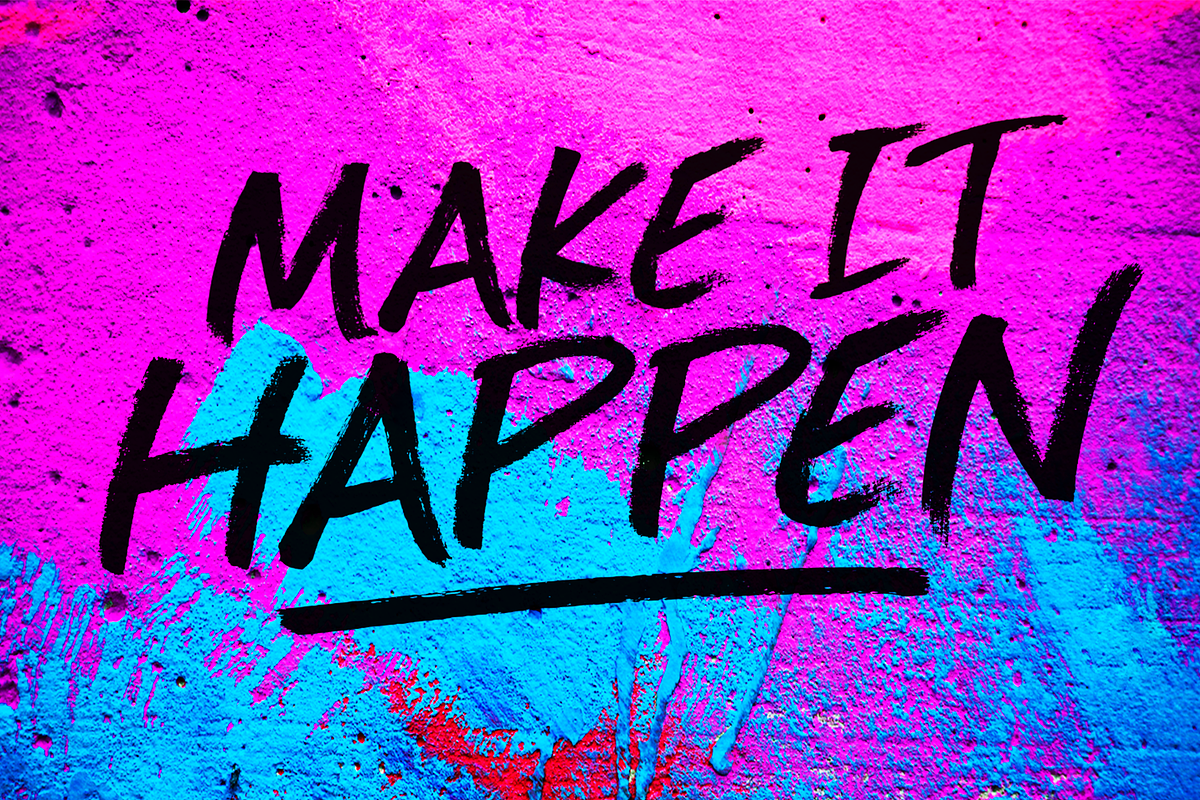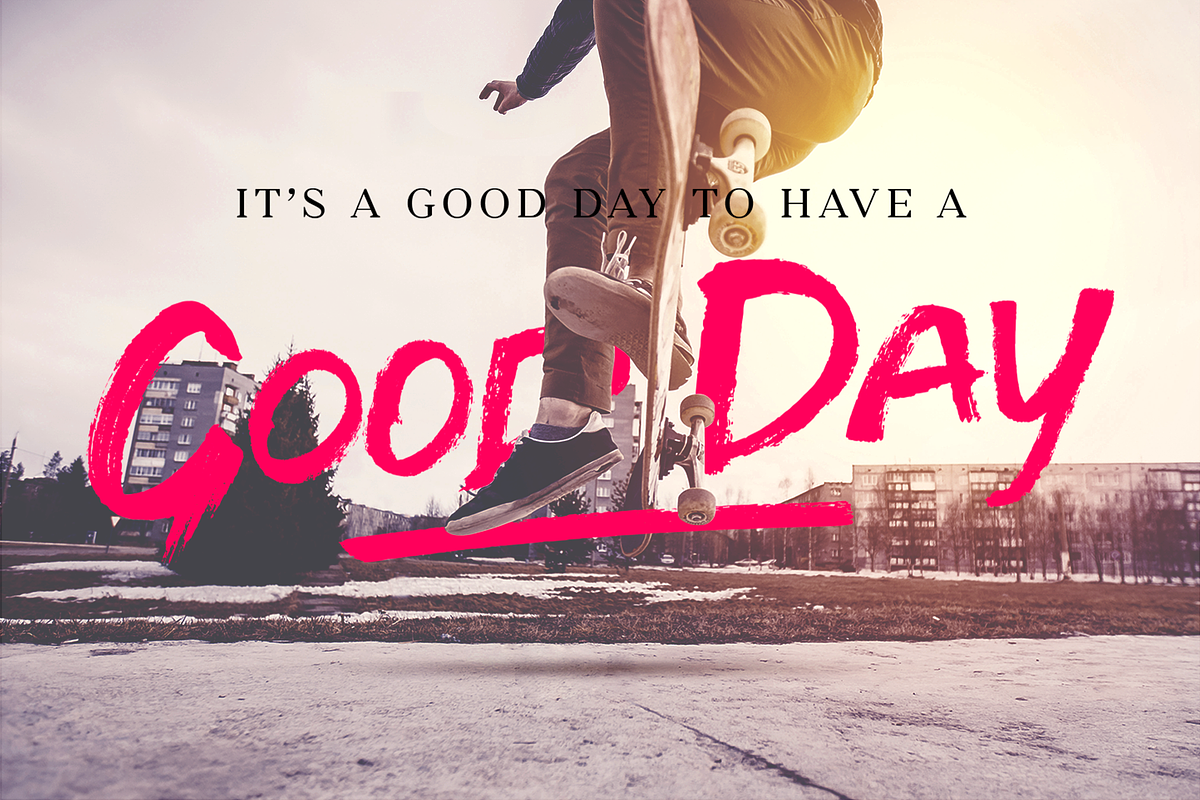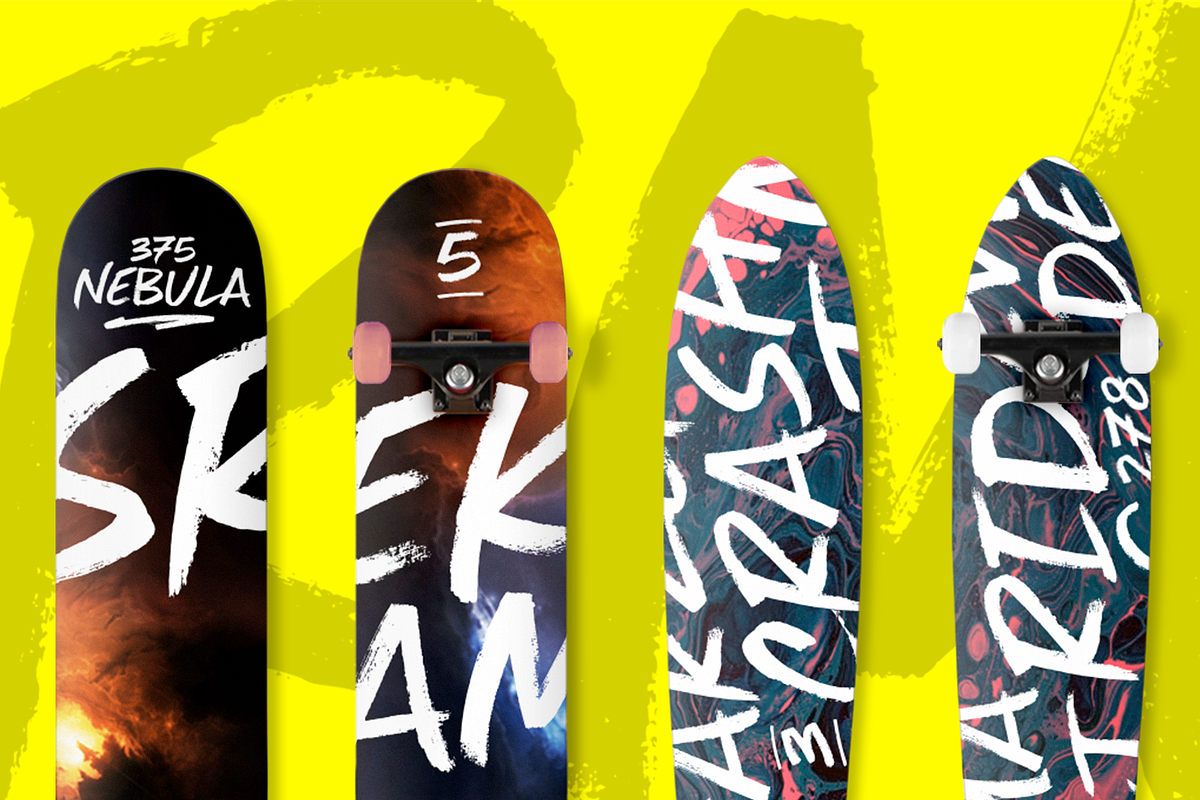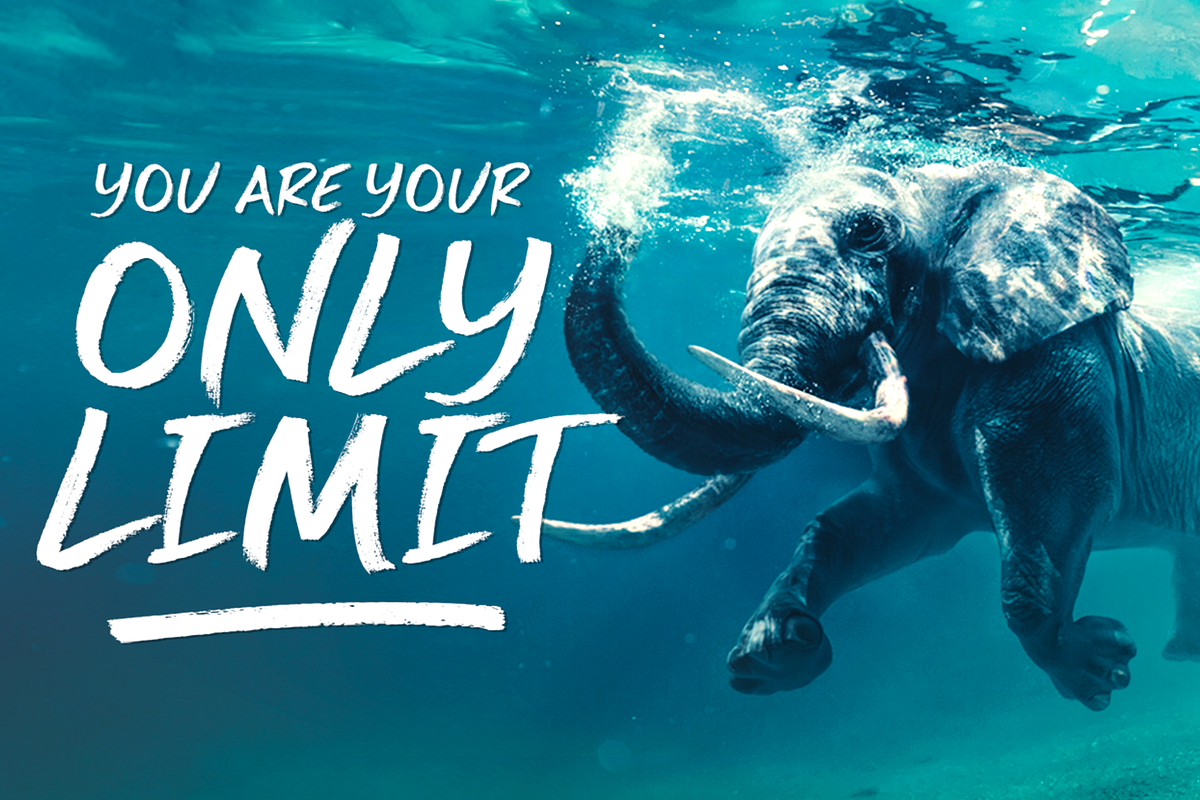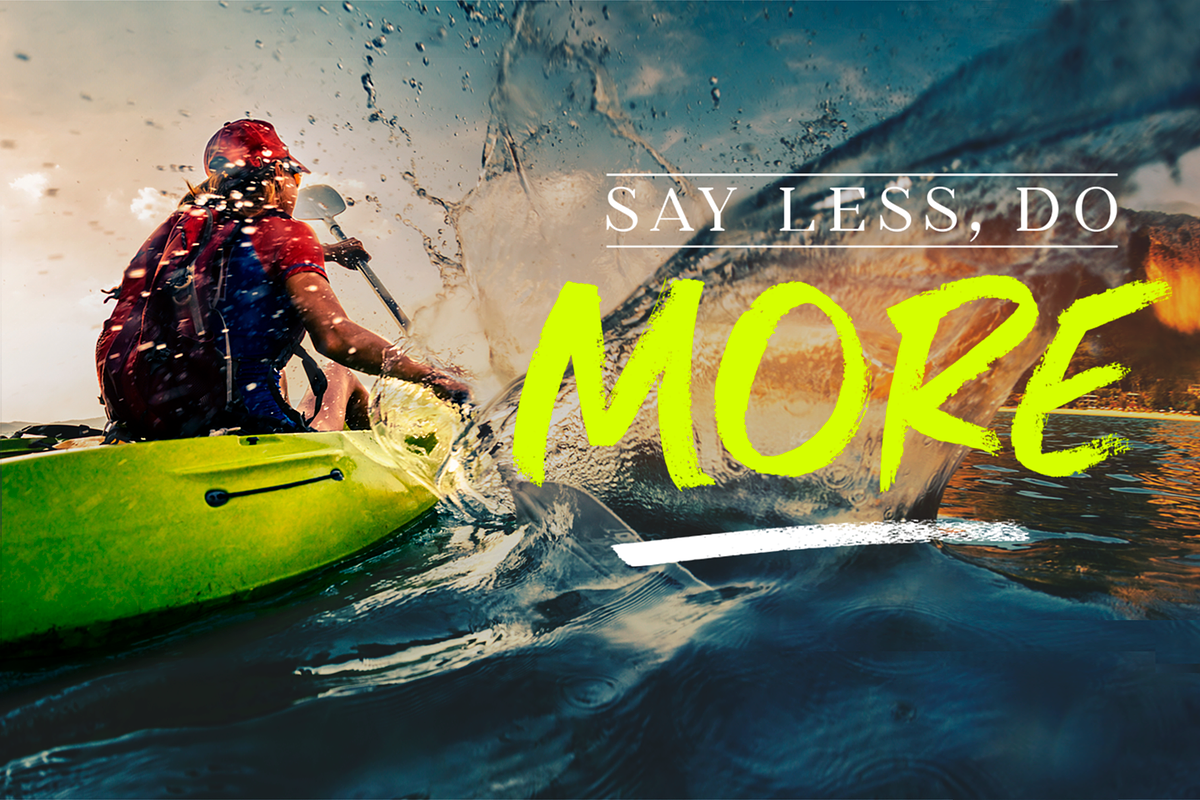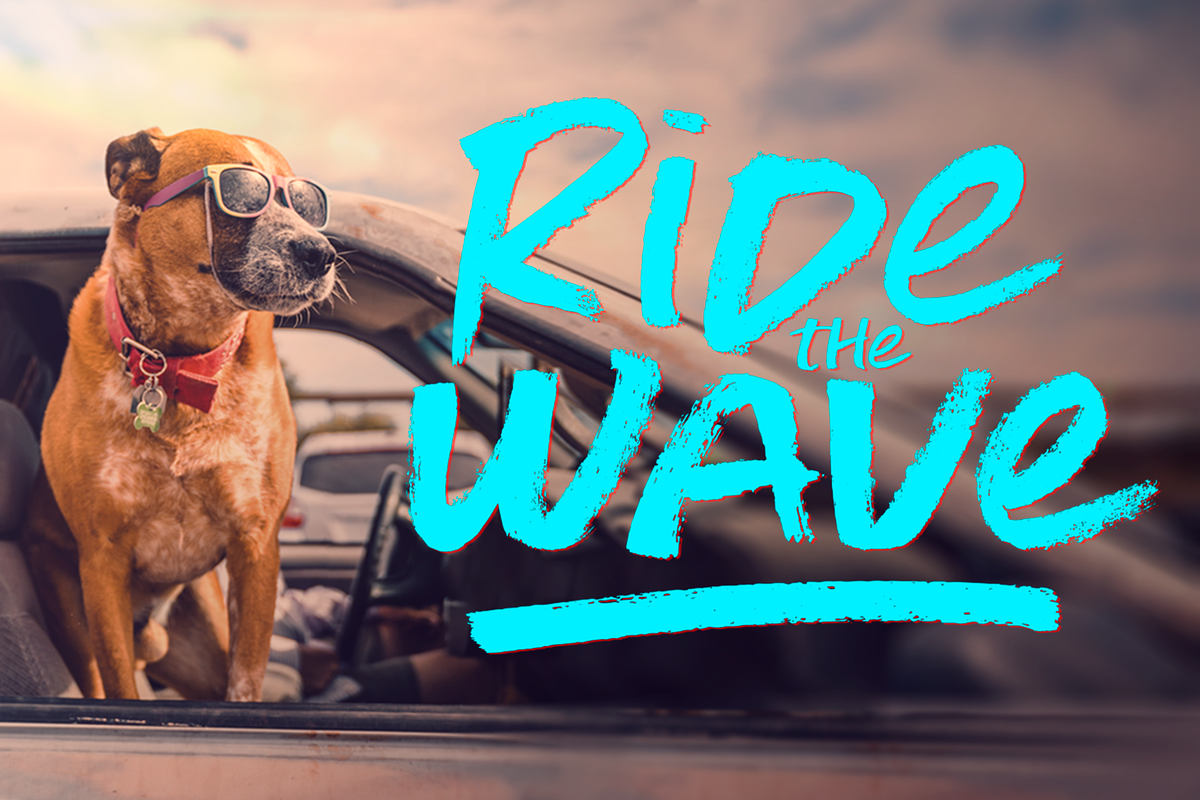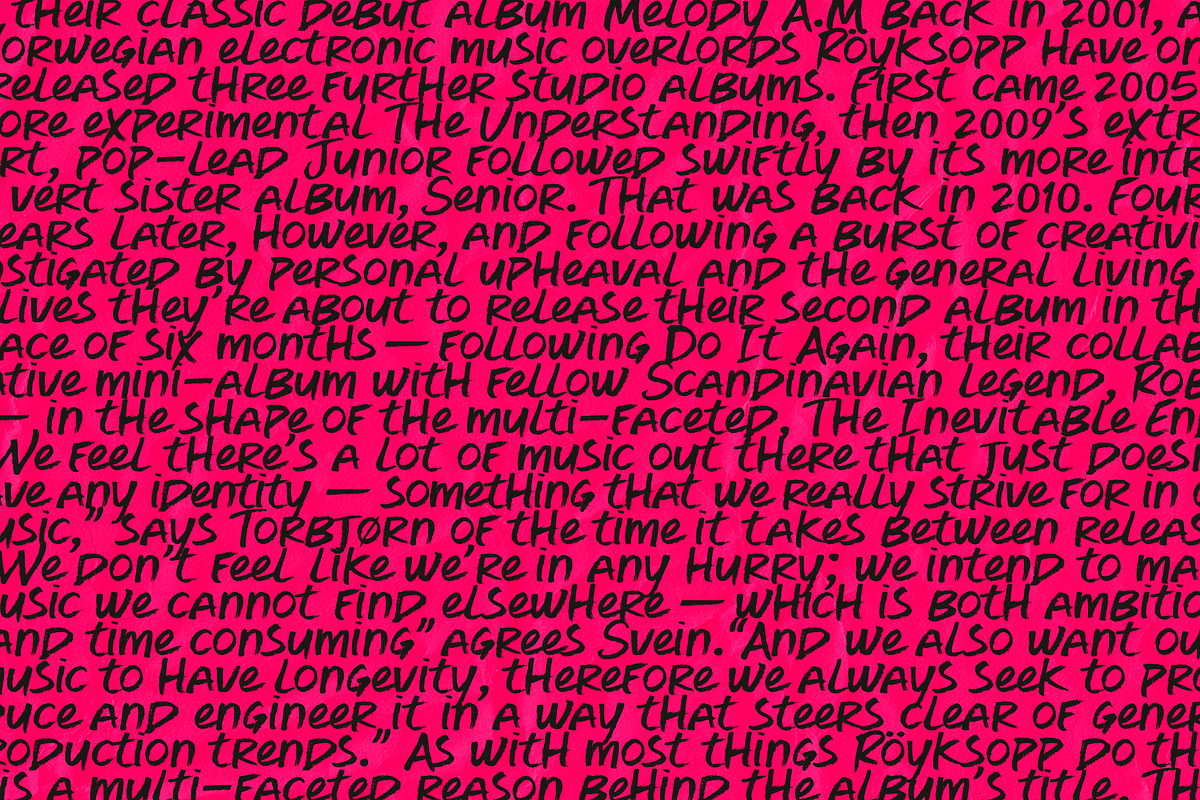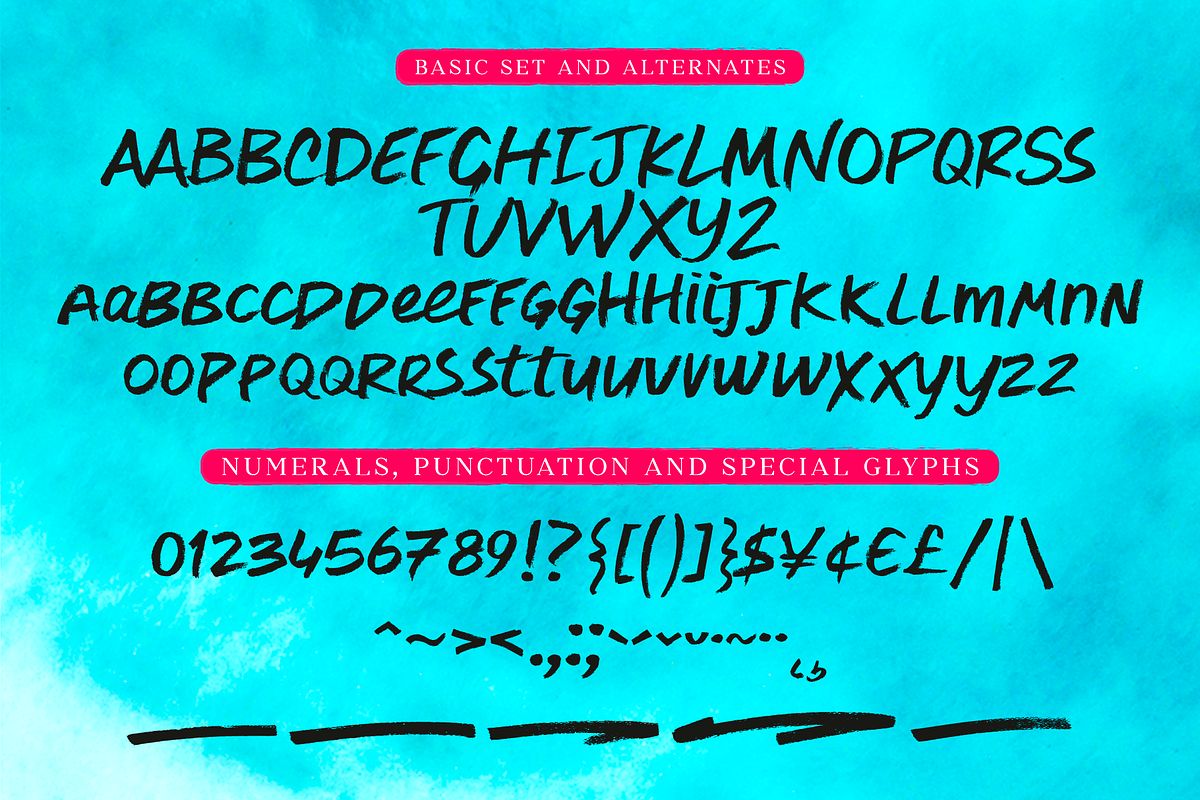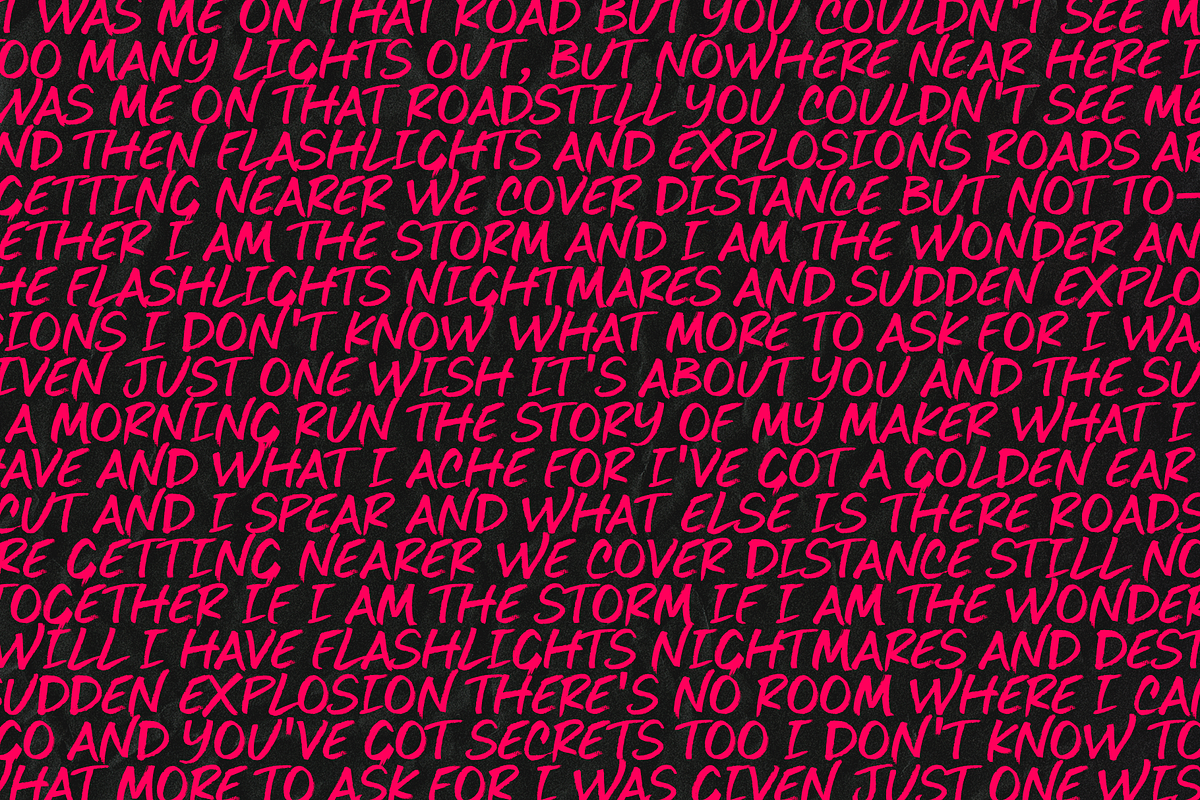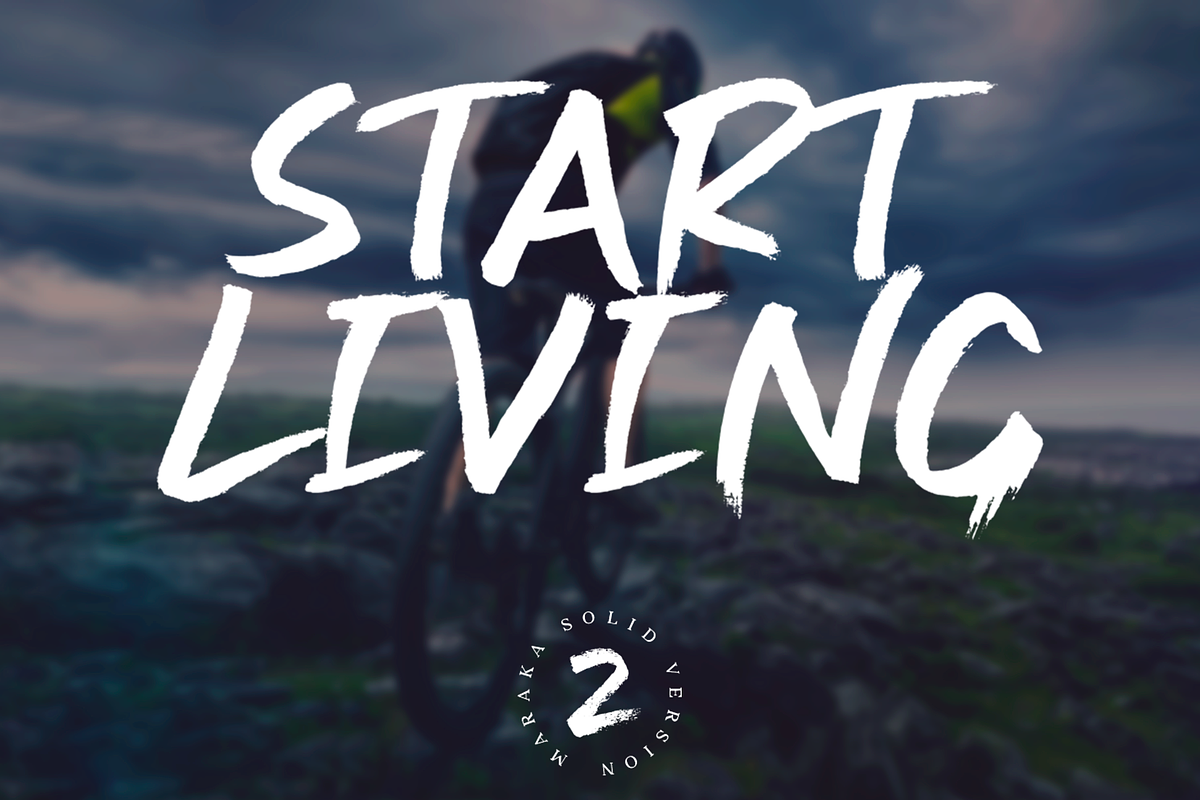
Maraka / handwrite font family
Maraka is a handwritten font family, drawn with a paint marker on rough paper, then scanned and turned into vector format. Maraka has a lot of alternative letters and is available in three versions: “Regular”, characterized by an unique look obtained by drawing the letters on a rough sheet, "Solid" and "Serif". Maraka is ideal for large headers, straplines and typographic composition, but it still gives a great dynamic effect when writing wordy paragraphs.